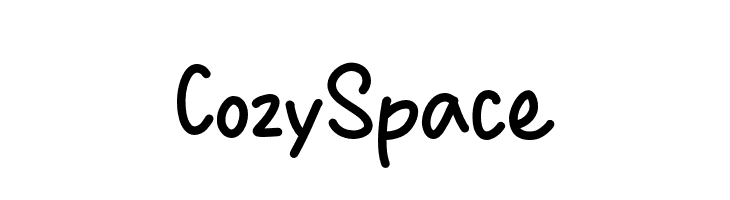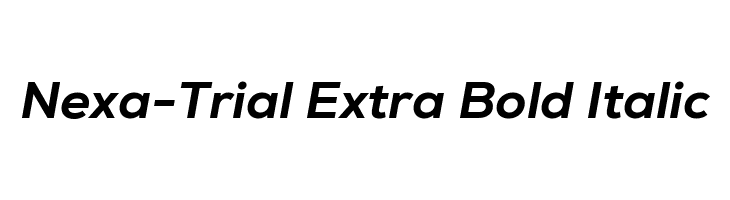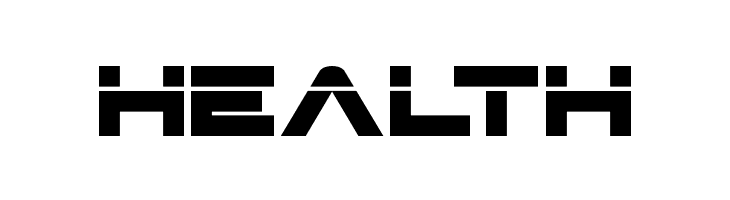
A futuristic, geometric font with bold, angular lines and a condensed style.
A bold, energetic script font with a handwritten feel.
Cartoonish, movie-themed illustrated display font.
A modern, italic font with consistent stroke width and elegant curvature.
Cartoon dingbat font with travel and passenger-themed illustrations.
A geometric and angular font with a modern, edgy style.
A modern, cursive font with a handwritten feel and elegant flow.
A bold, textured font with a metallic, industrial design and rounded, curvy letters.
A bold, expressive brush-style font with dynamic, fluid strokes.